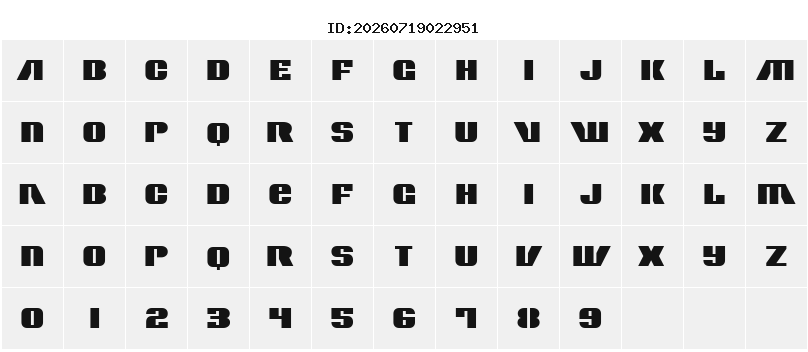
• Font Name: Contour Generator
• Designer: Ray Larabie
• Manufacturer: Larabie Fonts
About Contour Generator.ttf
Contour Generator.ttf is a modern, elegant sans-serif font designed for ultimate readability and visual harmony. Perfect for branding, headlines, web design, and print materials.